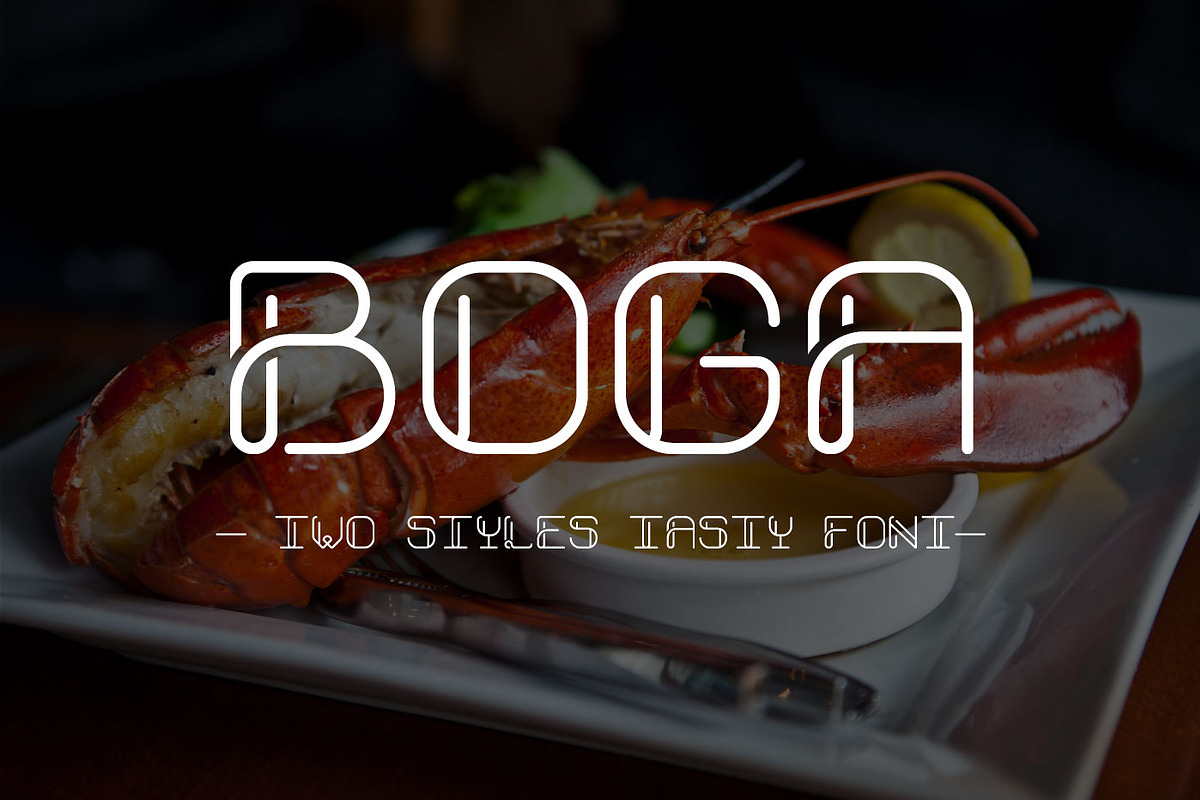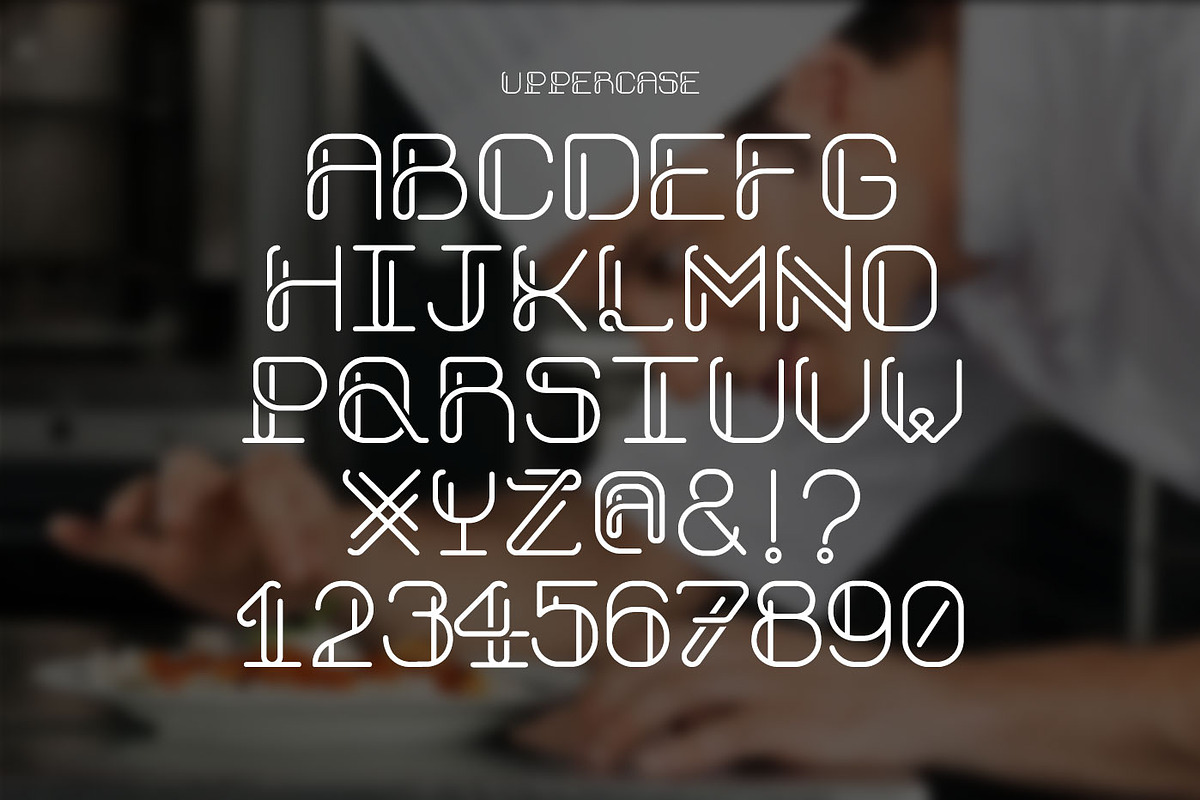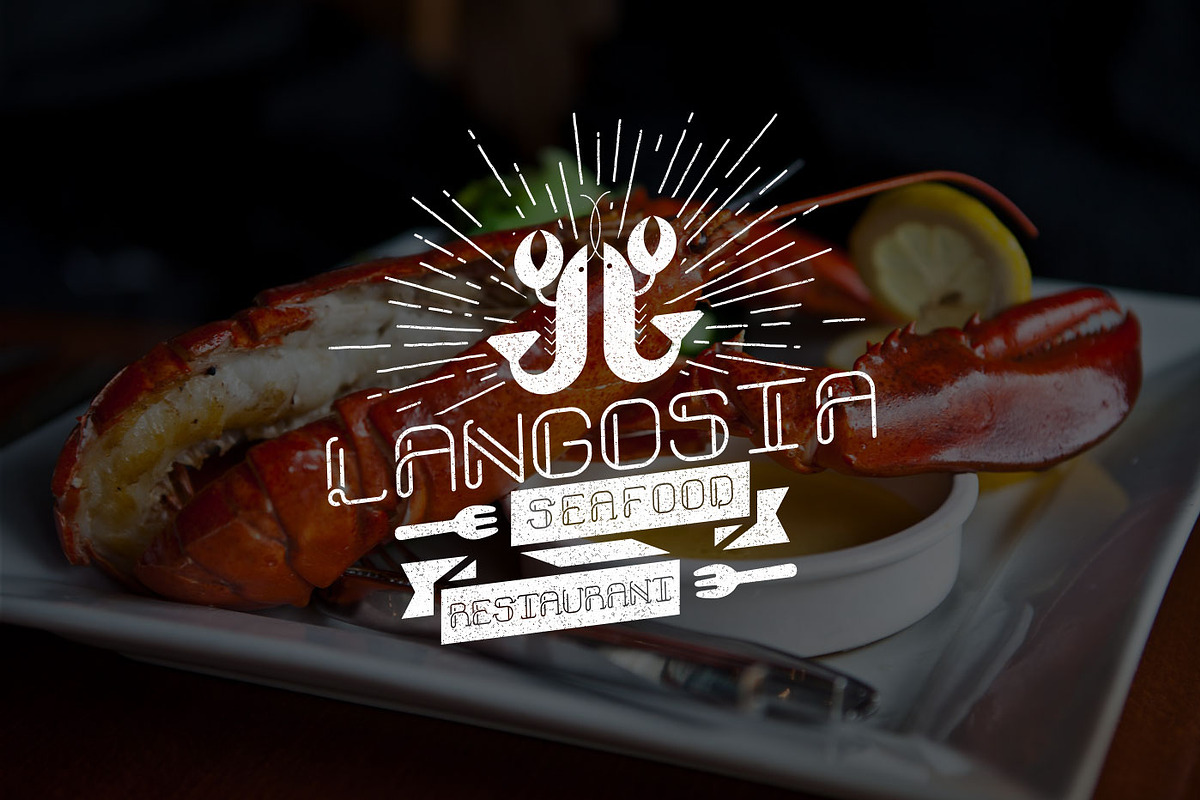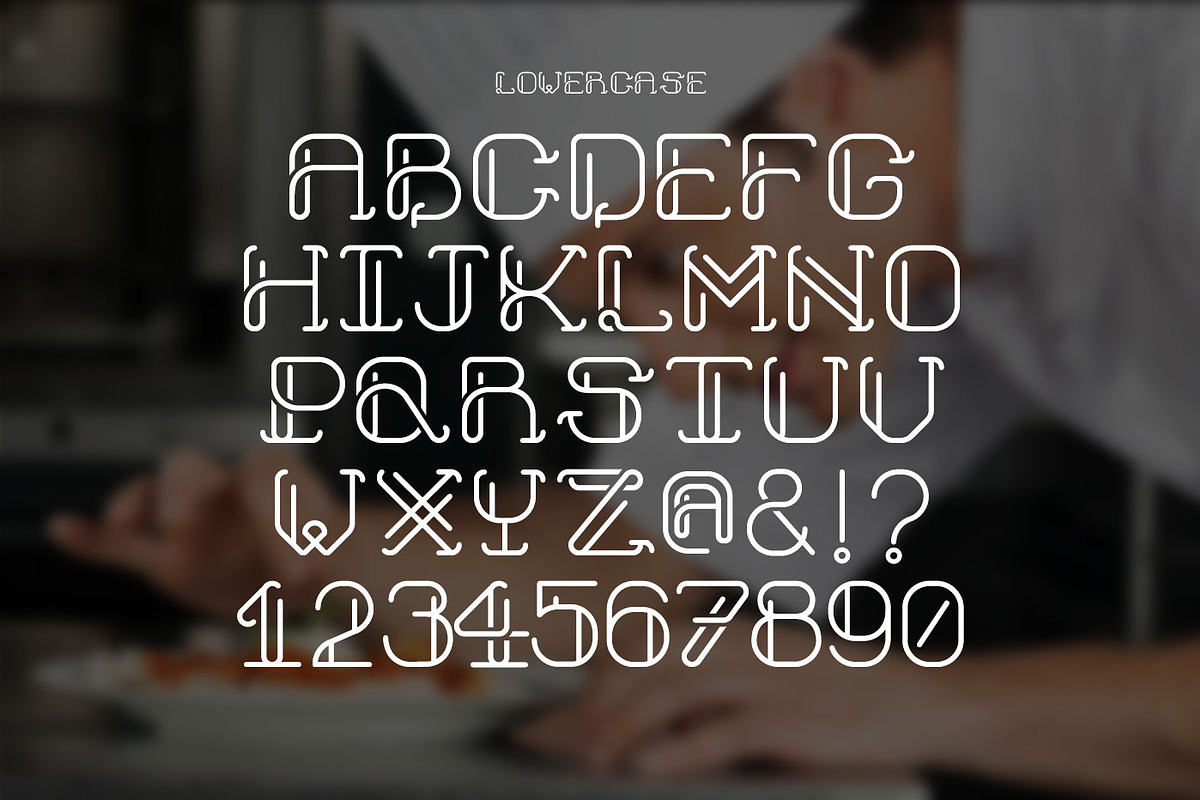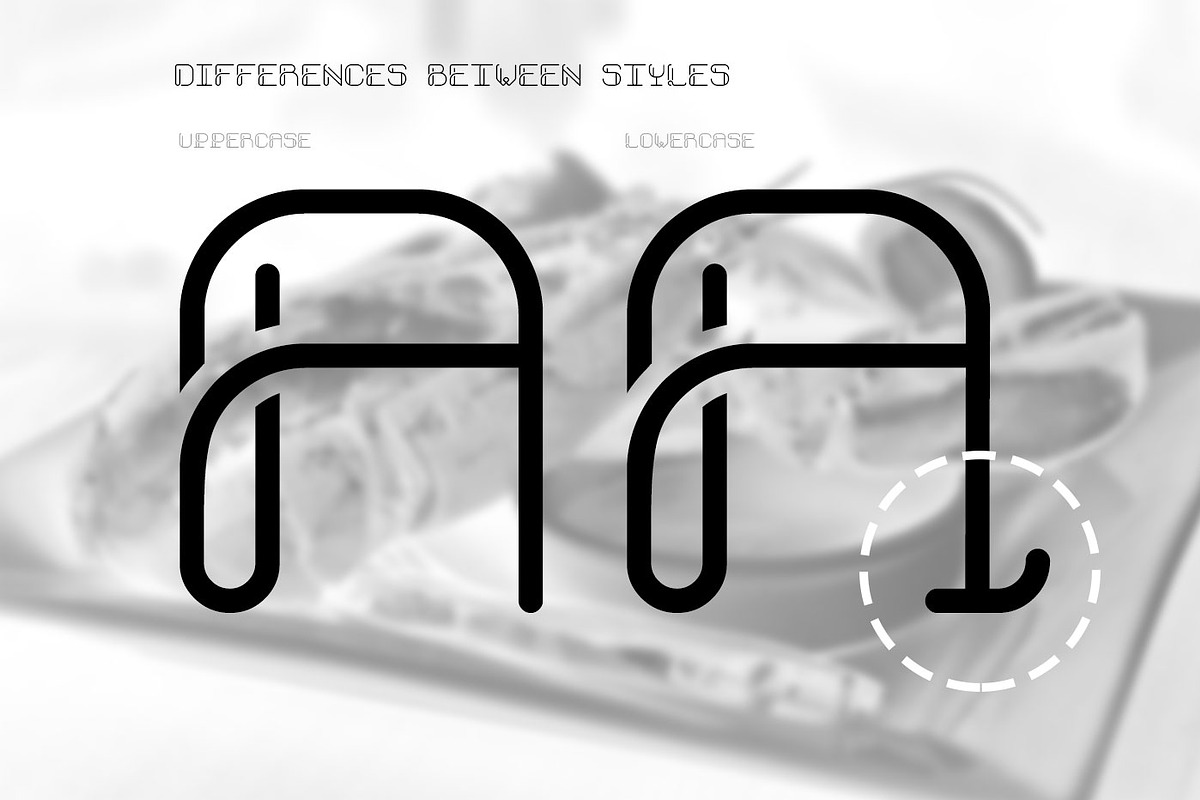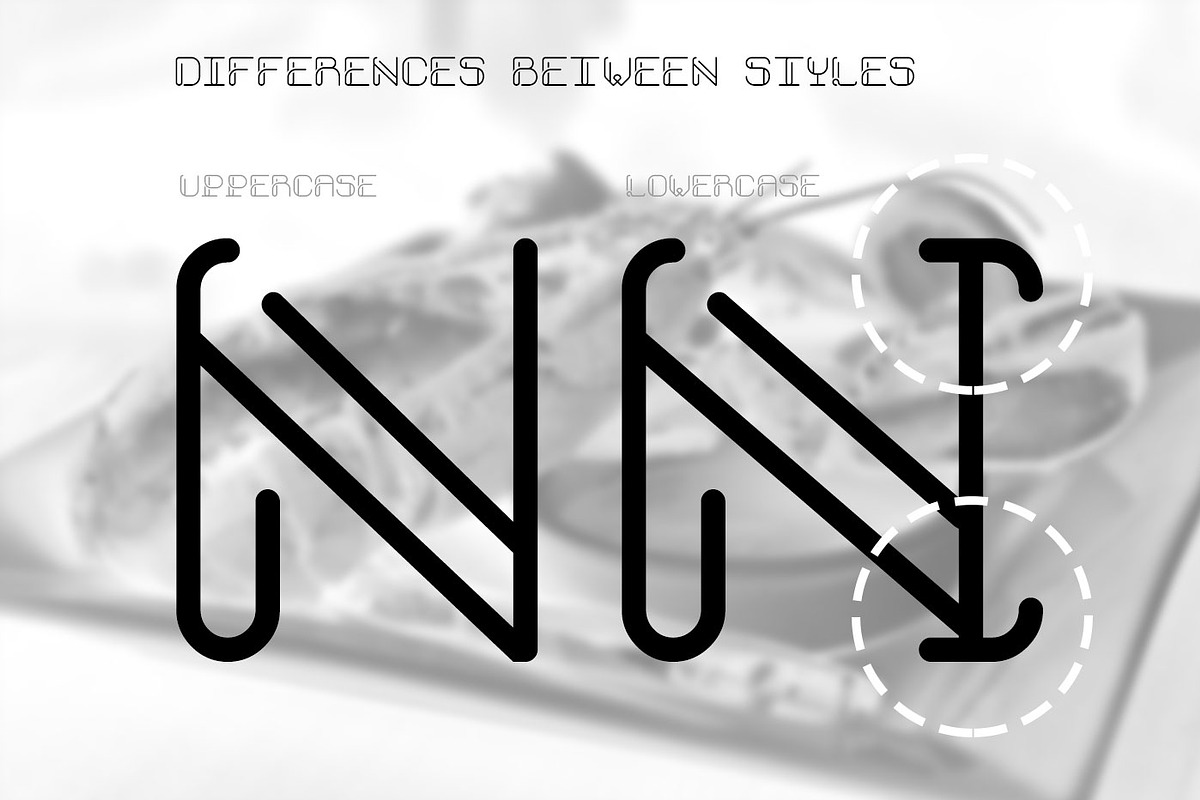
Boga Font
Boga Font by creativebythesea is a font selected for branding, posters, packaging, typography.
- Two Weights: Regular and Bold
- Boga Regular
- Boga Bold
Boga Font by creativebythesea fits naturally into Branding, posters, packaging, typography.